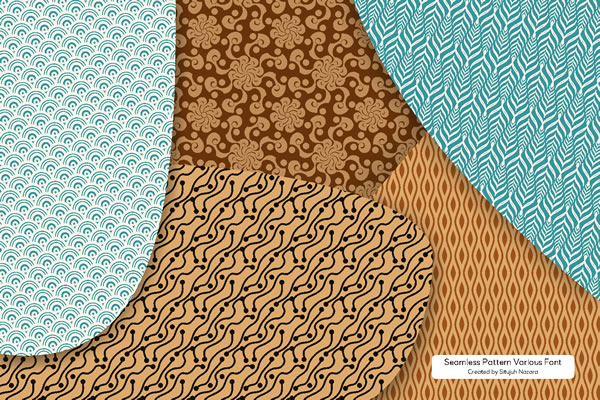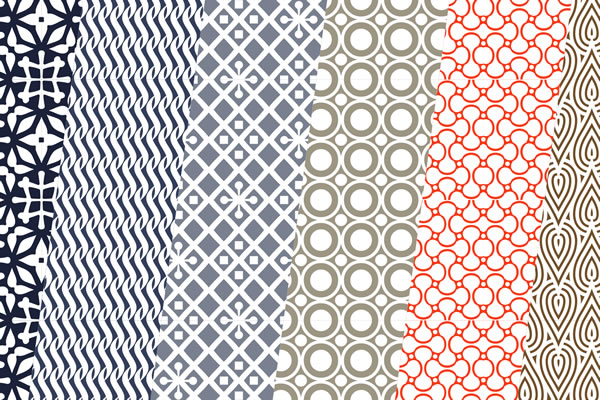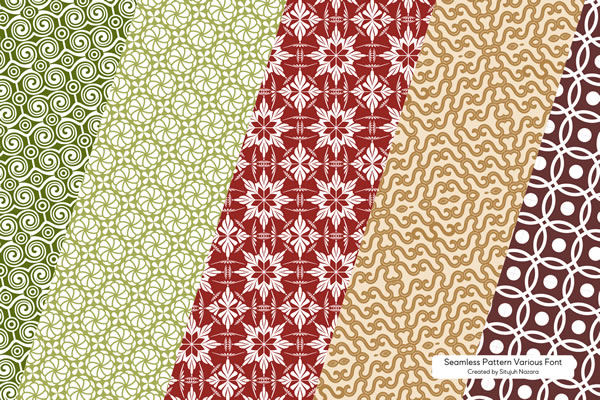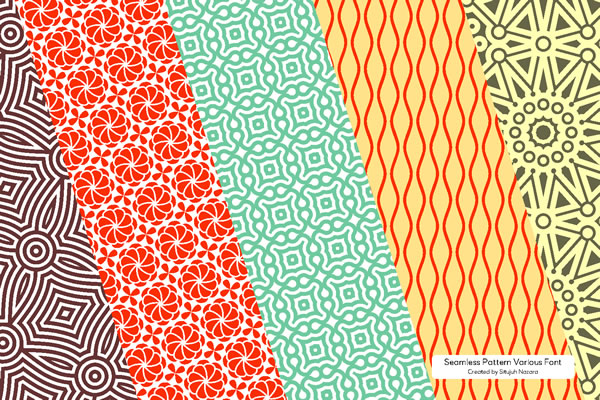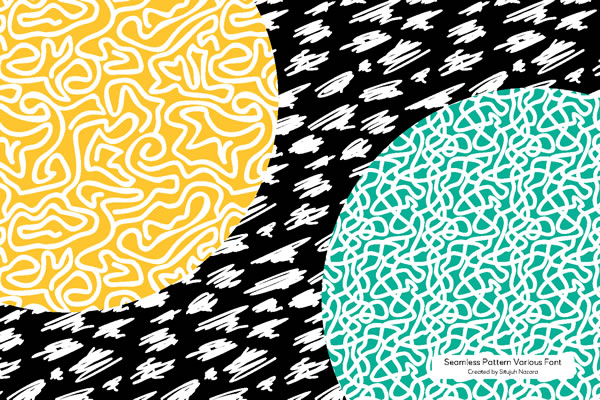
Seamless Patterns Font
That sounds like a fantastic dingbat font created by Situjuh Nazara! With its collection of 63 unique seamless patterns, it offers a great opportunity to add creativity and visual interest to your designs.
To use the font and create a unique seamless pattern, simply type your desired text using the font. Each character represents a different pattern within the font set. You can experiment with different characters to see the various patterns they generate. By repeating and aligning the characters, you can seamlessly tile and create a visually appealing pattern.
For example, let’s say you type the word “Pattern” using the font. Each letter in the word will be replaced by a different pattern from the dingbat font. You can then duplicate and arrange these characters in a grid-like fashion, aligning them to create a seamless pattern. Adjust the size, rotation, and placement of the characters as needed to achieve the desired effect.
By exploring the various characters and experimenting with different combinations and arrangements, you can unleash your creativity and generate countless unique seamless patterns using this dingbat font. Whether you’re designing backgrounds, textures, or decorative elements for your projects, this font provides a versatile and convenient way to add eye-catching patterns to your designs.